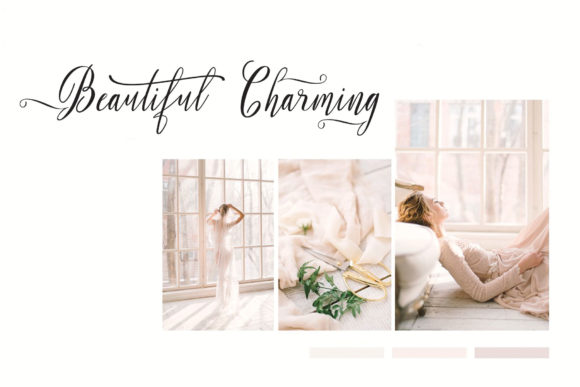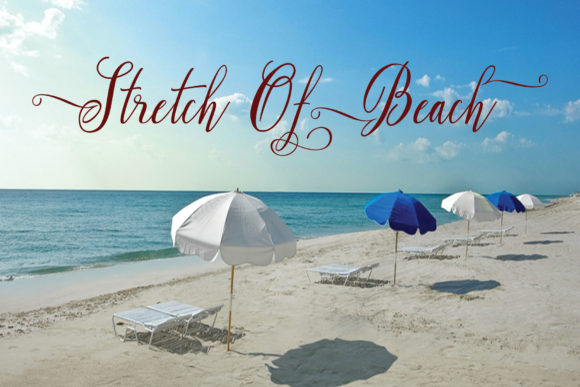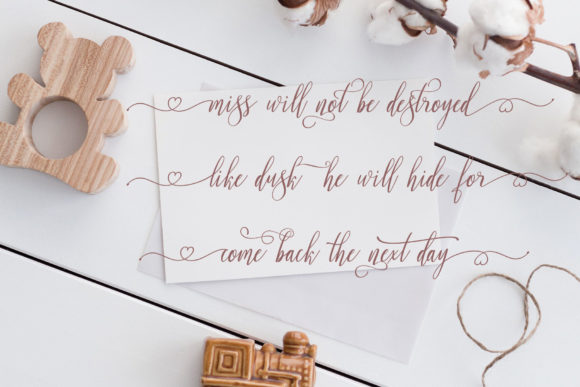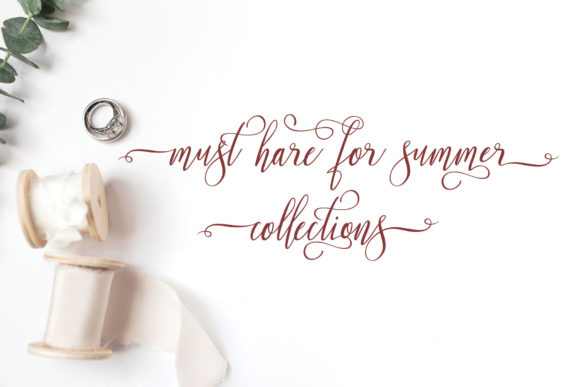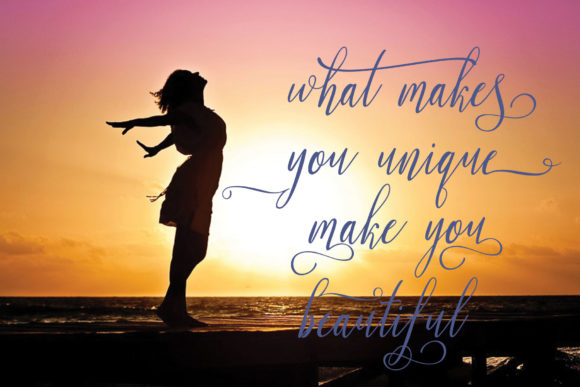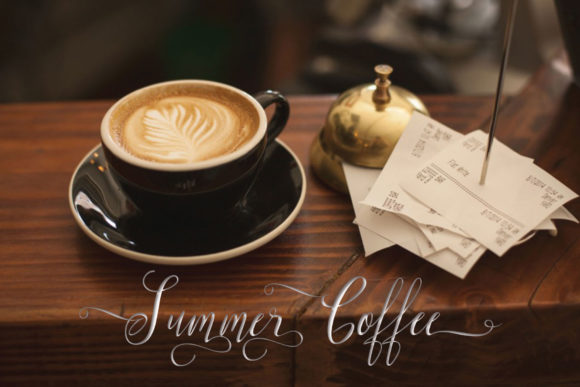
The Designer’s Delight: A Deep Dive into the Custhin Font
I’ll never forget the moment I stumbled upon the perfect font for a client’s wedding invitation project. I had been scrolling through pages of font options, but nothing seemed quite right. That was until I met Custhin – a lovely and modern handwritten font with a playful vibe that instantly turned my design project into a piece of art. In this article, we’ll explore what makes Custhin so special, its uses, and some helpful tips for getting the most out of this beautiful font.
A Personal Review: What I Love About Custhin
Custhin has quickly become one of my go-to fonts for a variety of design projects. Here are some things that I absolutely love about it:
- ✨ Unique and Playful Style: Custhin has a distinctive, modern handwritten look that’s perfect for adding a personal touch to any design.
- ✅ Highly Legible: Despite its playful nature, Custhin remains highly legible, even at smaller font sizes.
- 💫 Versatile: This font is suitable for a wide range of design projects, from wedding invitations and branding materials to social media graphics and more.
While Custhin is an excellent font, there are a few minor quirks to be aware of:
- 🤔 Limited Formality: Due to its playful nature, Custhin may not be the best choice for very formal or corporate designs.
- ⚠️ Glyph Support: As with any font, it’s essential to check the glyph support for specific characters or languages you may need.
Custhin supports OpenType features, which allow for advanced typographic control. Some of the features you can explore include:
- Ligatures: These are special character combinations that can be turned on or off.
- Stylistic Alternates: These provide alternative glyphs for certain characters, allowing for more customization.
- Glyphs: A wide range of glyphs are available, including punctuation, symbols, and more.
Custhin was designed with the intention of creating a modern, handwritten font that captures the essence of playfulness and creativity. The designer aimed to craft a font that would be both elegant and approachable, making it perfect for a wide range of design projects.
| What type of projects is Custhin best suited for? | Custhin is versatile and can be used for a variety of projects, including wedding invitations, branding materials, social media graphics, and more. |
| Is Custhin a formal or informal font? | Custhin has a playful, modern feel, making it more suitable for informal or creative projects. |
| Does Custhin support OpenType features? | Yes, Custhin supports OpenType features, including ligatures, stylistic alternates, and glyphs. |